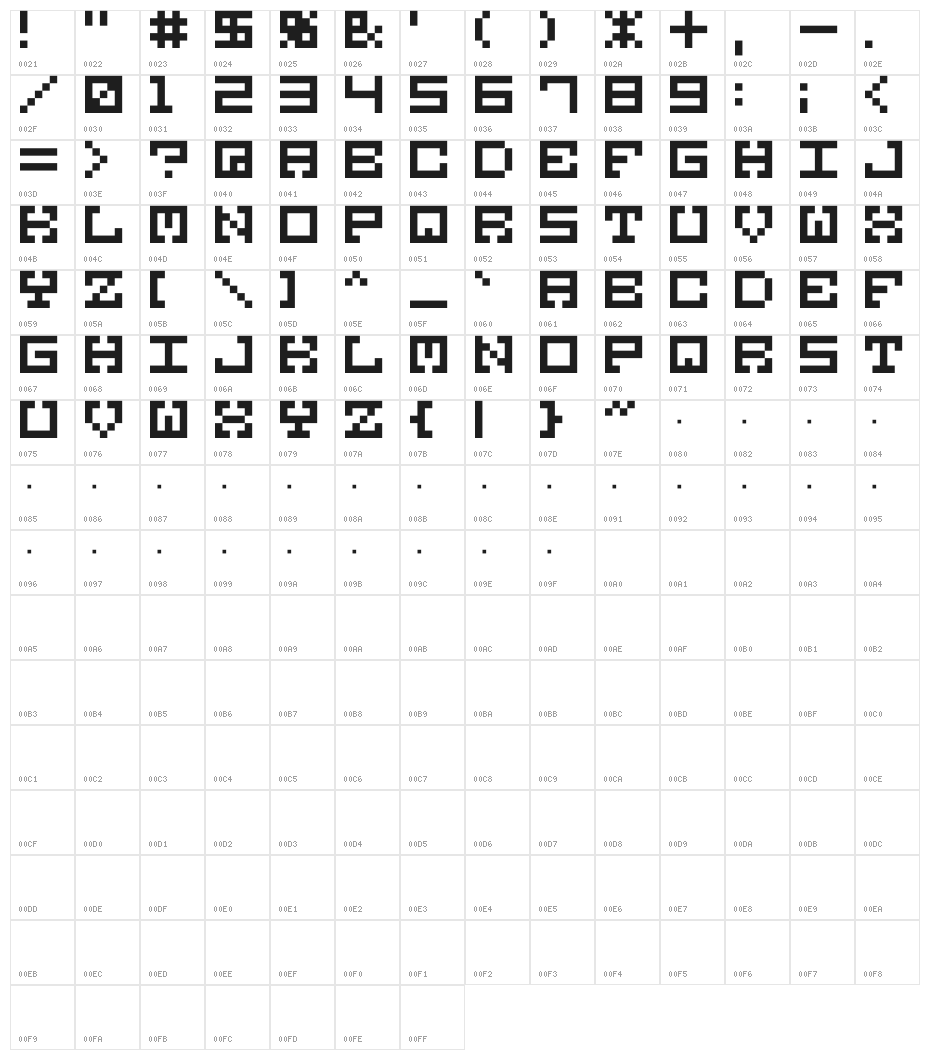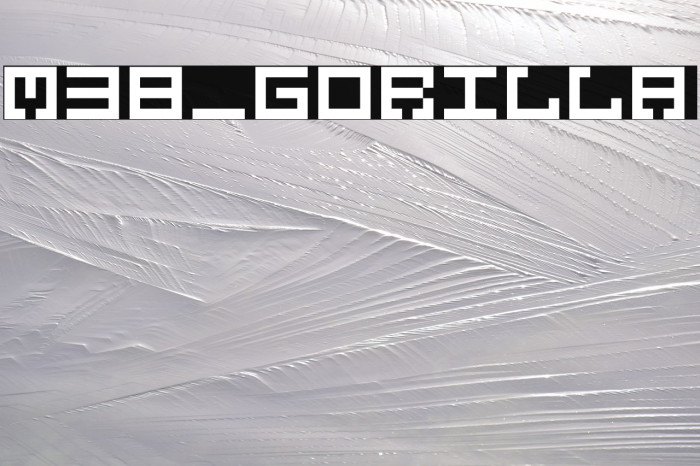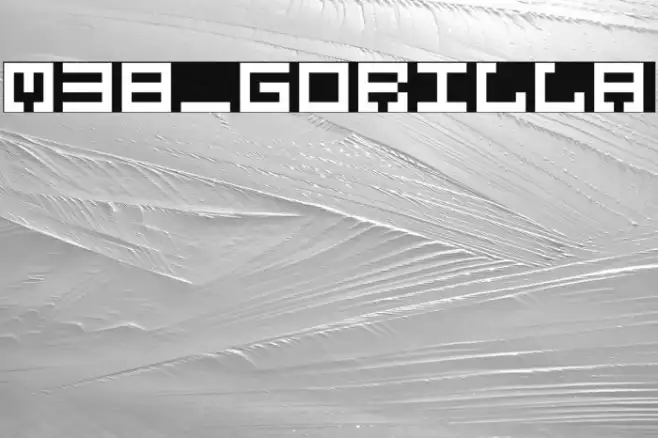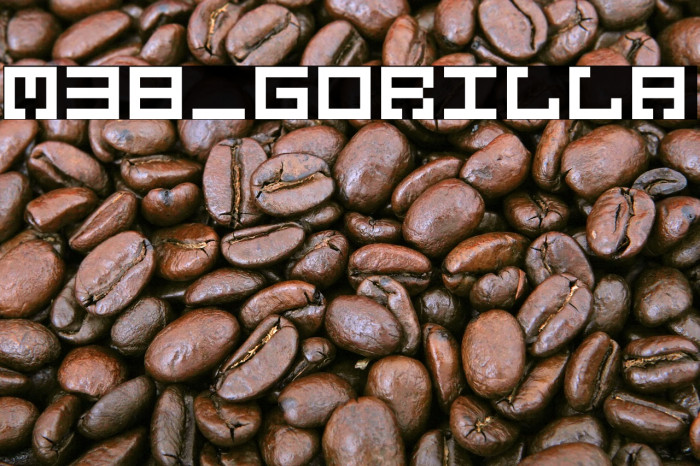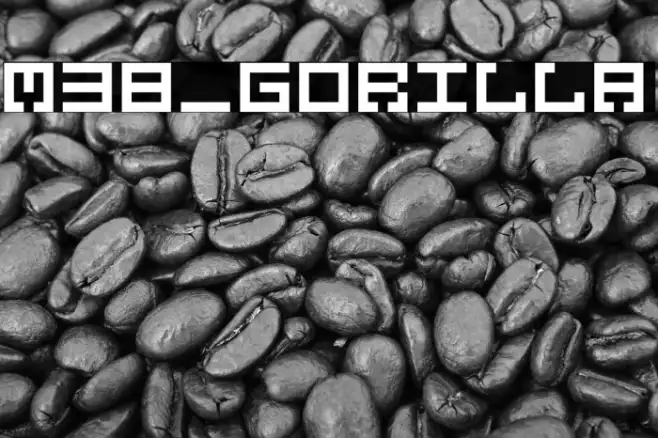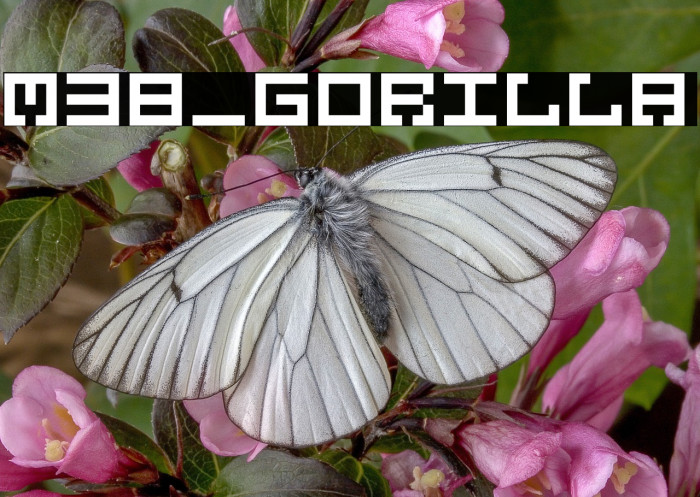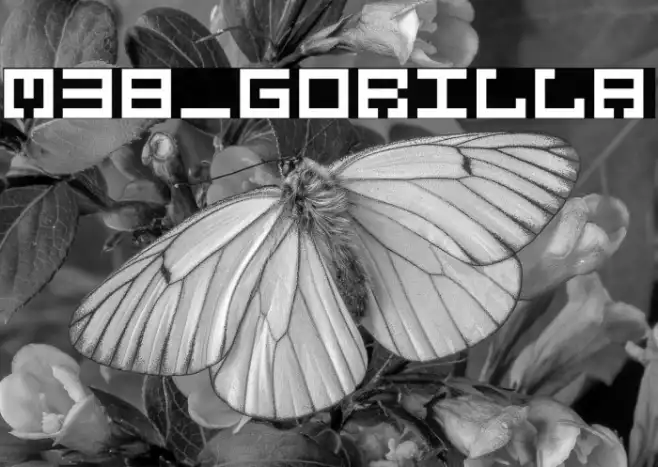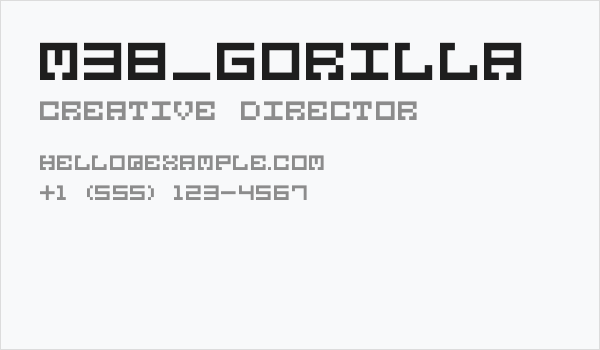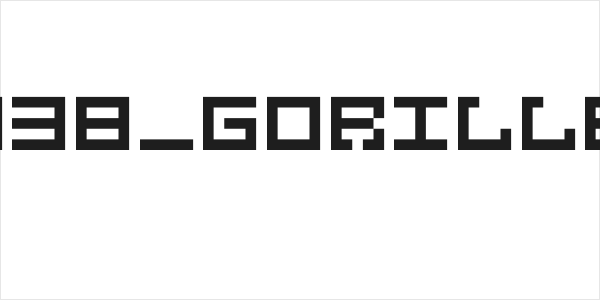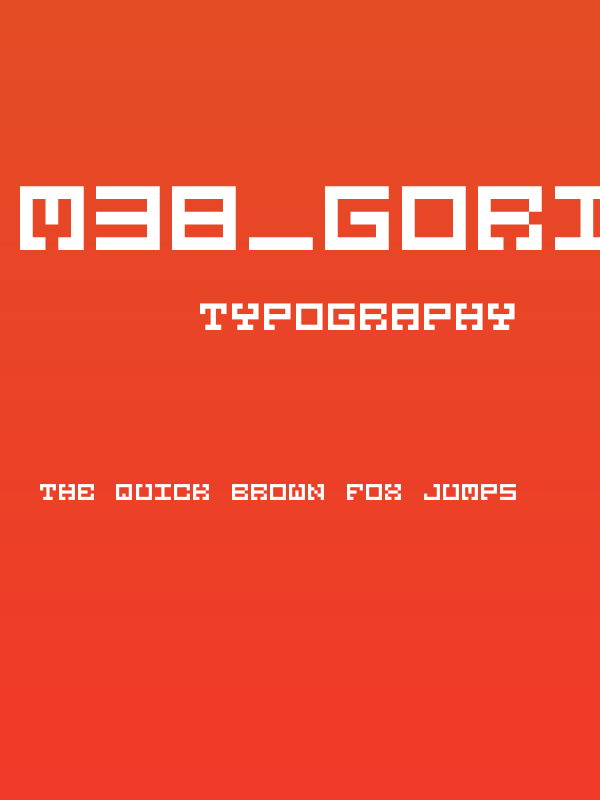
M38_GORILLA Font
M38_GORILLA Description
This font features a bold, pixelated design reminiscent of classic arcade games and digital displays. Each character is constructed with a blocky, grid-like structure, giving it a distinctly retro and technological feel. The uppercase and lowercase letters maintain a consistent height, contributing to a uniform appearance across the text. Numbers and special characters are similarly styled, ensuring a cohesive look throughout. The font's geometric shapes and sharp edges make it highly legible, even at smaller sizes, while its unique style adds a playful and nostalgic touch to any project.
| Overall Style | Retro, Technological |
| Use Case | Headlines, Logos, Digital displays |
| Proposed Projects | Ideal for video game graphics, retro-themed designs, digital displays, and tech-related branding. |